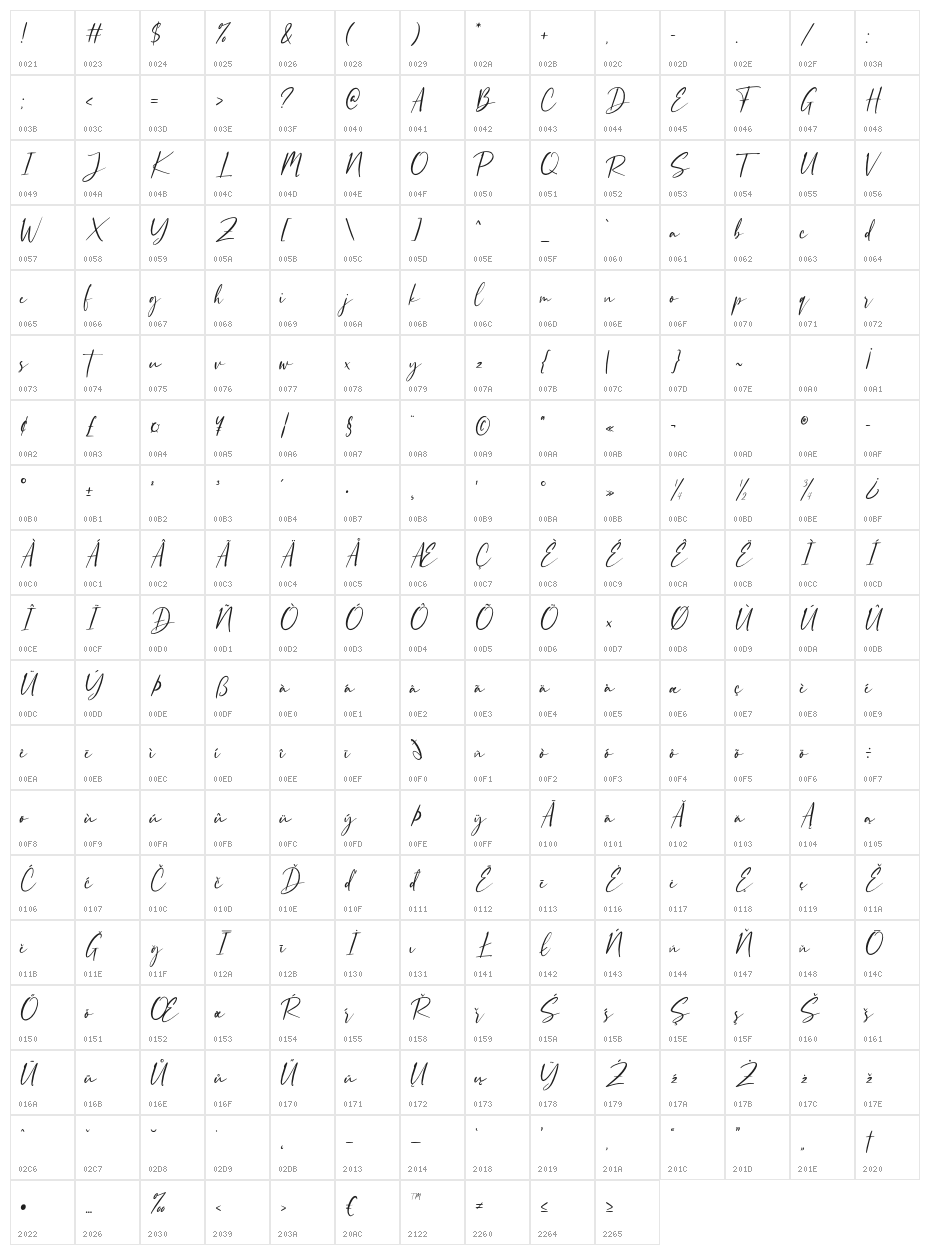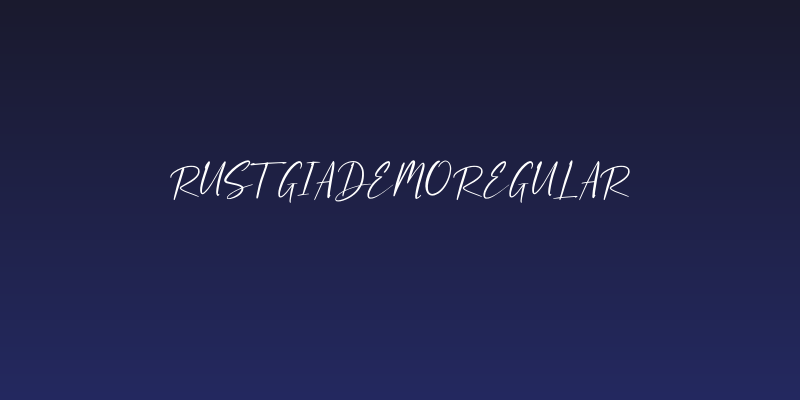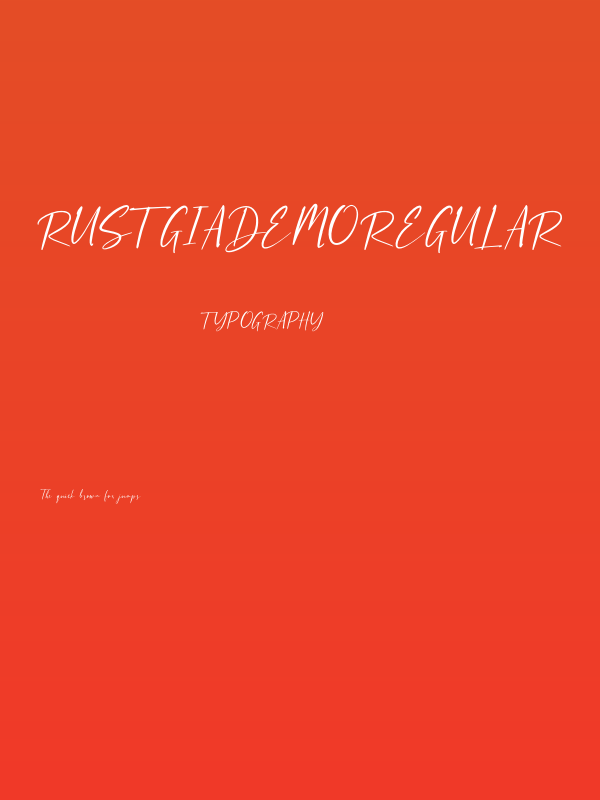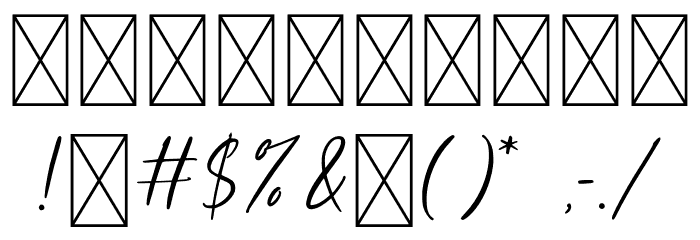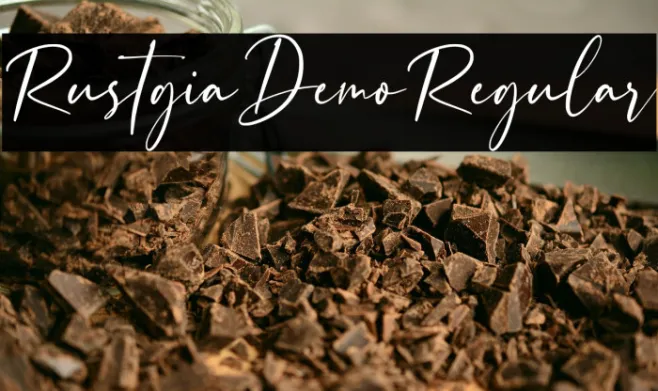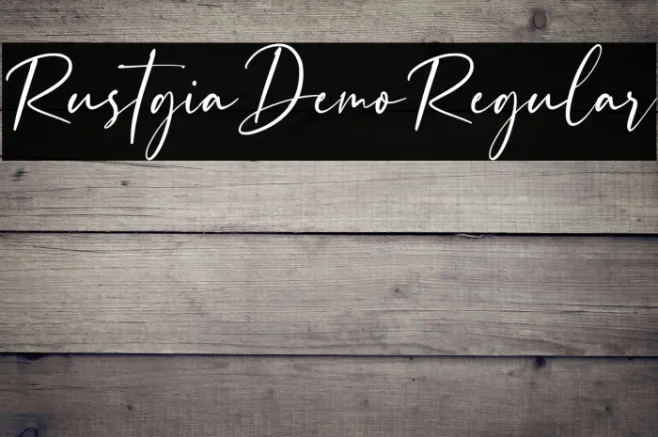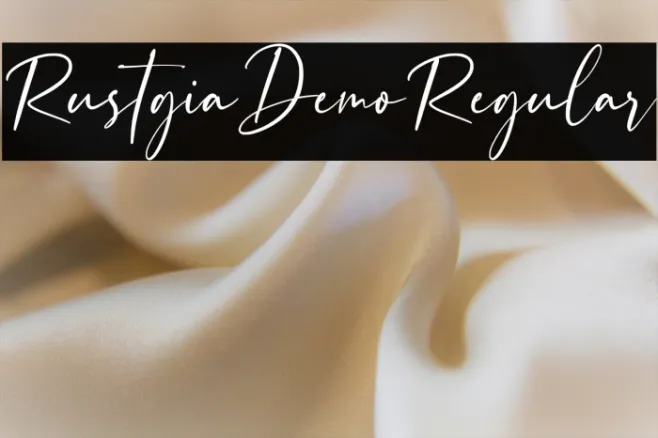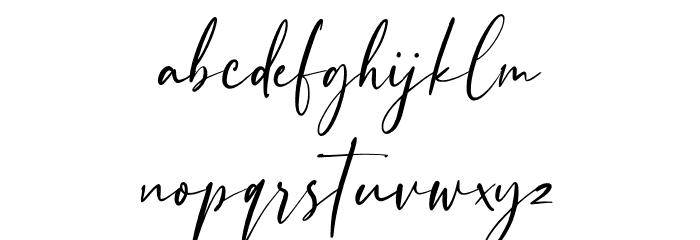
RustgiaDemoRegular Font
RustgiaDemoRegular Description
This font features an elegant and flowing script style, characterized by its smooth, cursive strokes and a handwritten appearance. The uppercase letters are tall and slightly slanted, giving a sense of sophistication and grace. The lowercase letters maintain a consistent flow, with some characters extending below the baseline, adding to the font's dynamic nature. The numerals and special characters are designed to match the overall aesthetic, ensuring a cohesive look across all text. This font is ideal for projects that require a personal touch or a sense of elegance.
| Proposed Projects | Ideal for wedding invitations, greeting cards, branding, and elegant packaging. |